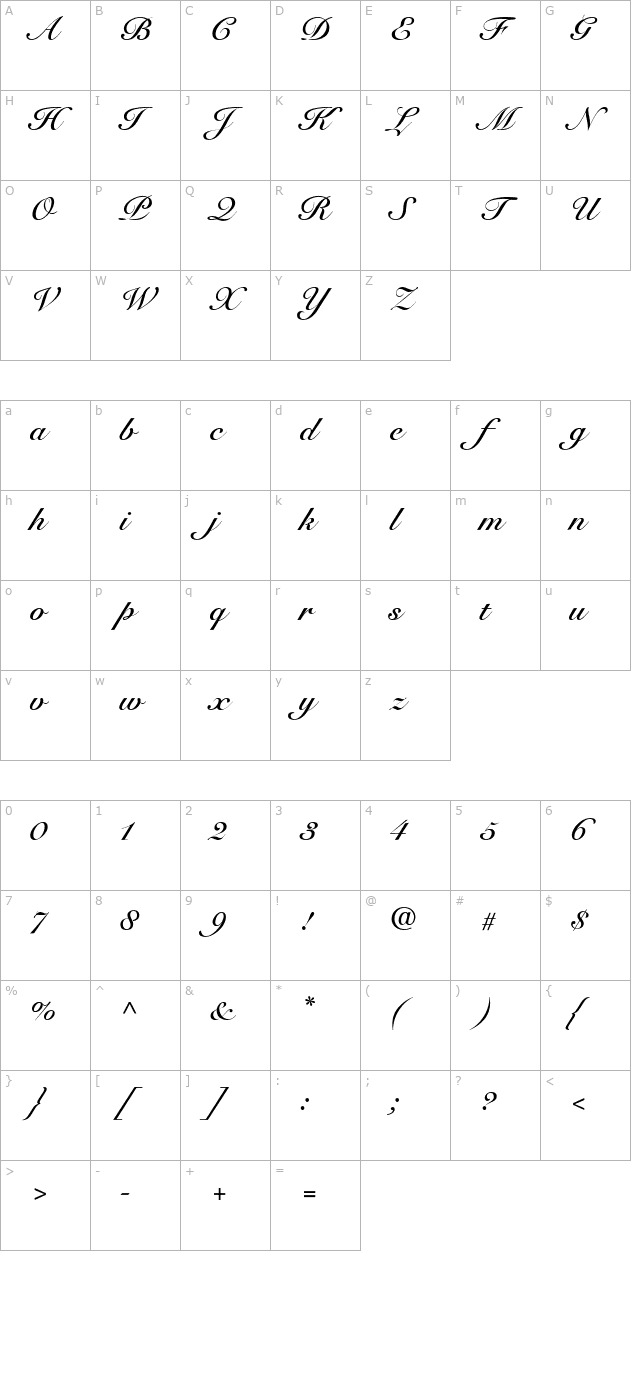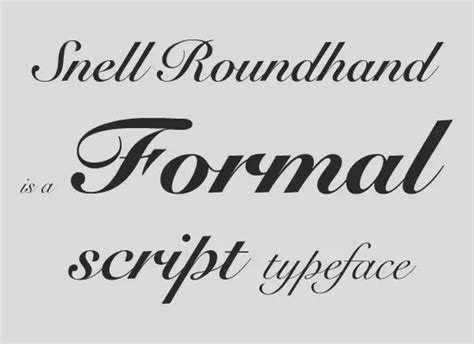
Snell Roundhand Script Font
Snell Roundhand Script Font - Conception and design were both based on the 18th century round hand scripts. Snell roundhand script was designed in 1965 by matthew carter. Explore our extensive collection of beautiful. Web snidely font (35 downloads) download. Download the snell roundhand script free font. Snell roundhand script font was designed in 1965 by matthew carter. Web snell roundhand script character map. Web about snell roundhand font family. The font has an elegant and. Conception and design were both based on the 18th century round hand scripts.
Conception and design were both based on the 18th century round hand scripts. Conception and design were both based on the 18th century round hand scripts. Web snidely font (35 downloads) download. Download the snell roundhand script free font. Download the snell roundhand script font for free in ttf format compatible with windows and mac. Snell roundhand script was designed in 1965 by matthew carter. Detailed information on the snell roundhand script font: Explore our extensive collection of beautiful. The font has an elegant and. Web snell roundhand script character map.
Web snidely font (35 downloads) download. Explore our extensive collection of beautiful. Conception and design were both based on the 18th century round hand scripts. Snell roundhand script was designed in 1965 by matthew carter. Web snell roundhand script character map. Web about snell roundhand font family. Snell roundhand script font was designed in 1965 by matthew carter. Download the snell roundhand script font for free in ttf format compatible with windows and mac. The font has an elegant and. Download the snell roundhand script free font.
Web snidely font (35 downloads) download. Download the snell roundhand script free font. Web about snell roundhand font family. Snell roundhand script font was designed in 1965 by matthew carter. Web snell roundhand script character map.
The font has an elegant and. Snell roundhand script was designed in 1965 by matthew carter. Detailed information on the snell roundhand script font: Web about snell roundhand font family. Snell roundhand script font was designed in 1965 by matthew carter.
Conception and design were both based on the 18th century round hand scripts. Download the snell roundhand script font for free in ttf format compatible with windows and mac. Explore our extensive collection of beautiful. Download the snell roundhand script free font. Detailed information on the snell roundhand script font:
Conception and design were both based on the 18th century round hand scripts. The font has an elegant and. Web about snell roundhand font family. Download the snell roundhand script font for free in ttf format compatible with windows and mac. Web snell roundhand script character map.
Explore our extensive collection of beautiful. Web snidely font (35 downloads) download. Conception and design were both based on the 18th century round hand scripts. Snell roundhand script was designed in 1965 by matthew carter. Conception and design were both based on the 18th century round hand scripts.
Detailed information on the snell roundhand script font: Download the snell roundhand script free font. Snell roundhand script font was designed in 1965 by matthew carter. Web snell roundhand script character map. The font has an elegant and.
Conception and design were both based on the 18th century round hand scripts. Detailed information on the snell roundhand script font: Download the snell roundhand script font for free in ttf format compatible with windows and mac. Download the snell roundhand script free font. The font has an elegant and.
Download the snell roundhand script font for free in ttf format compatible with windows and mac. Web snell roundhand script character map. The font has an elegant and. Web about snell roundhand font family. Conception and design were both based on the 18th century round hand scripts.
Conception and design were both based on the 18th century round hand scripts. Web snidely font (35 downloads) download. Conception and design were both based on the 18th century round hand scripts. Snell roundhand script was designed in 1965 by matthew carter. Detailed information on the snell roundhand script font:
Download the snell roundhand script font for free in ttf format compatible with windows and mac. Web snell roundhand script character map. Download the snell roundhand script free font. Explore our extensive collection of beautiful. Conception and design were both based on the 18th century round hand scripts.
Conception And Design Were Both Based On The 18Th Century Round Hand Scripts.
The font has an elegant and. Download the snell roundhand script font for free in ttf format compatible with windows and mac. Conception and design were both based on the 18th century round hand scripts. Explore our extensive collection of beautiful.
Web About Snell Roundhand Font Family.